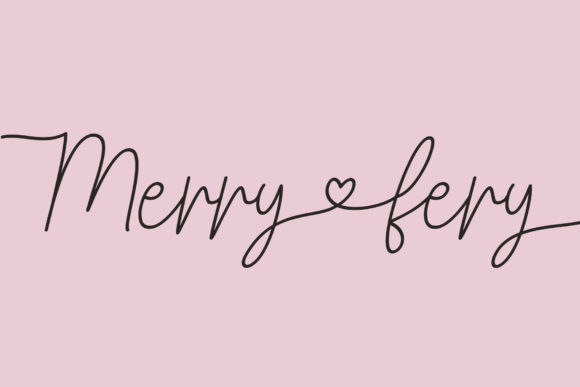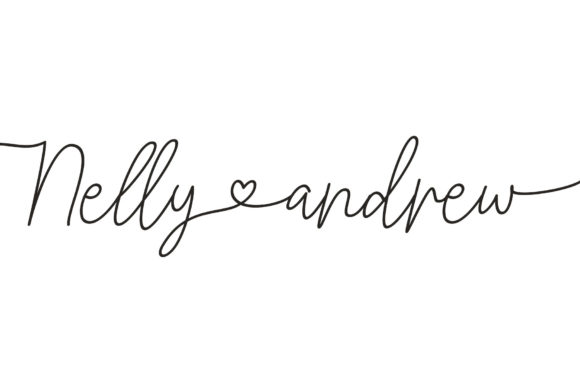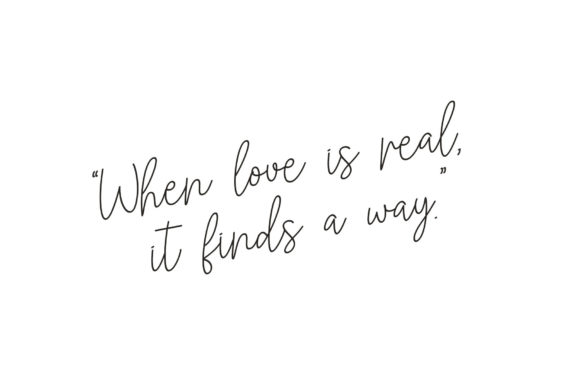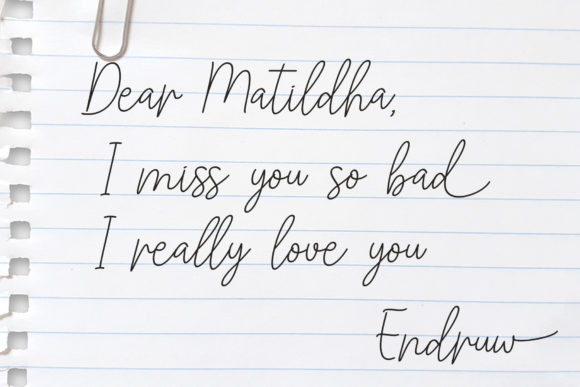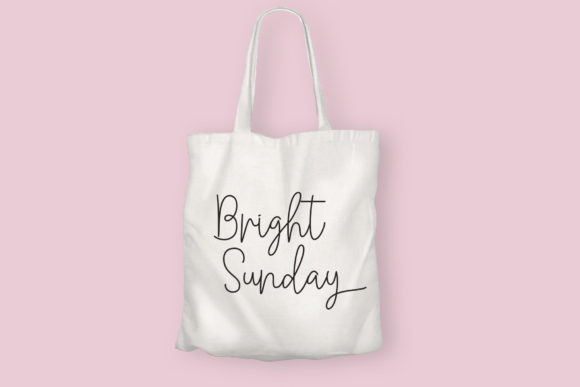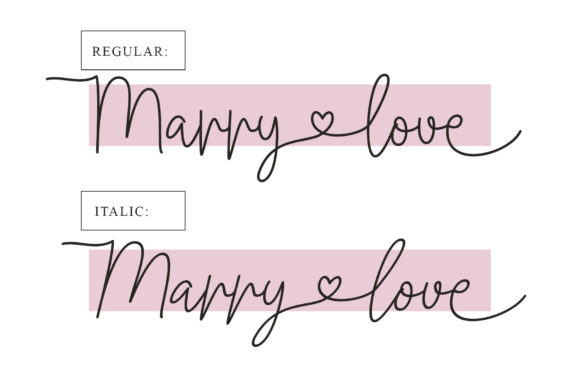
Dating Love Font: The Sweet and Simple Script Font for Your Creative Projects
Are you a designer, crafter, or DIY enthusiast looking for a beautiful and elegant font to add a touch of love to your projects? Look no further than the Dating Love font! This sweet and thin lettered script font is perfect for creating stunning texts that exude love and sophistication. In this article, we’ll dive into the features and benefits of the Dating Love font, and explore how you can use it to elevate your creative projects.
What is Dating Love Font?
Dating Love is a beautiful script font that features simple, yet elegant lettering with a touch of love swashes. The font is designed to be versatile and can be used for a variety of projects, from romantic gifts and cards to branding and advertising materials. With its thin and delicate strokes, Dating Love is perfect for adding a touch of whimsy and romance to your text.
Key Features of Dating Love Font
- Sweet and Simple Lettering: Dating Love features a beautiful, hand-written script that is both elegant and easy to read.
- Love Swashes: The font includes simple love swashes that add a touch of romance and whimsy to your text.
- PUA Encoded: Dating Love is PUA (Private Use Area) encoded, which means that you can access all of the glyphs and swashes with ease.
Benefits of Using Dating Love Font
So, why choose Dating Love font for your creative projects? Here are just a few benefits of using this beautiful script font:
- Adds a Touch of Romance: Whether you’re creating a romantic gift or a branding material, Dating Love font adds a touch of love and sophistication to your text.
- Versatile: The font is versatile and can be used for a variety of projects, from cards and invitations to advertising materials and branding.
- Elegant and Easy to Read: The thin and delicate strokes of Dating Love font make it easy to read and elegant to look at.
- Perfect for DIY Projects: Whether you’re a crafter or DIY enthusiast, Dating Love font is perfect for adding a personal touch to your projects.
In conclusion, Dating Love font is a beautiful and elegant script font that is perfect for adding a touch of love and sophistication to your creative projects. With its simple love swashes, PUA encoding, and easy-to-use design, Dating Love font is a must-have for designers, crafters, and DIY enthusiasts. Whether you’re creating romantic gifts, branding materials, or DIY projects, Dating Love font is sure to make your text look stunning!